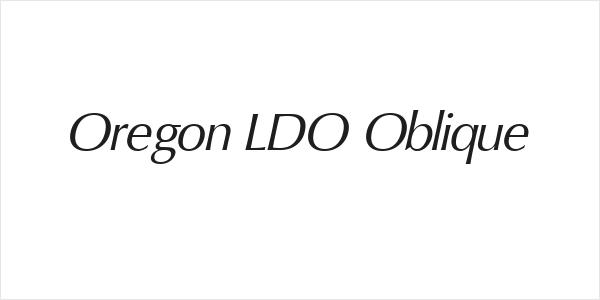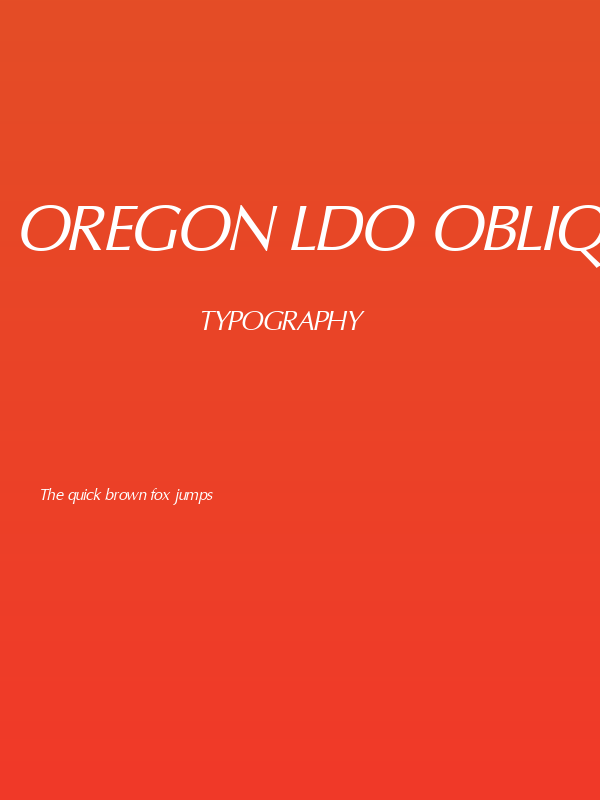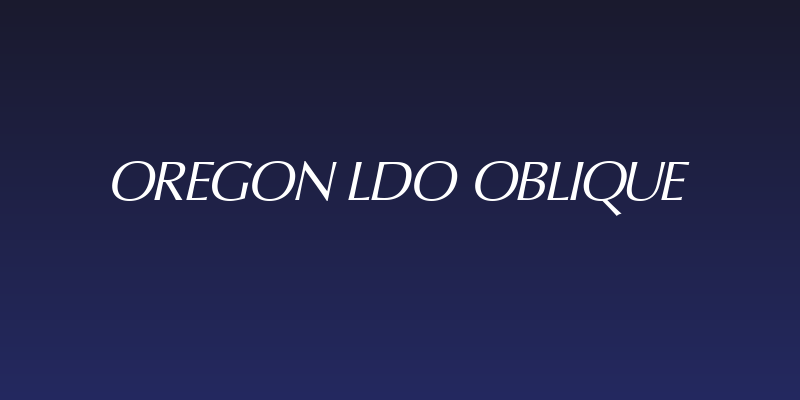
Oregon LDO Oblique Font
Oregon LDO Oblique Description
This font features an elegant and sophisticated oblique style, characterized by its smooth, flowing lines and slightly slanted orientation. The uppercase letters are tall and slender, with a refined appearance that conveys a sense of modernity and professionalism. The lowercase letters maintain a consistent style, offering a harmonious blend with the uppercase set. The numerals are clear and legible, designed to complement the overall aesthetic. Special characters are thoughtfully crafted, ensuring versatility across various applications. This font's design is ideal for projects that require a touch of elegance and modernity.
| Use Case | Headlines, Logos, Editorial design |
| Proposed Projects | Ideal for branding, editorial design, fashion magazines, and luxury product packaging. |